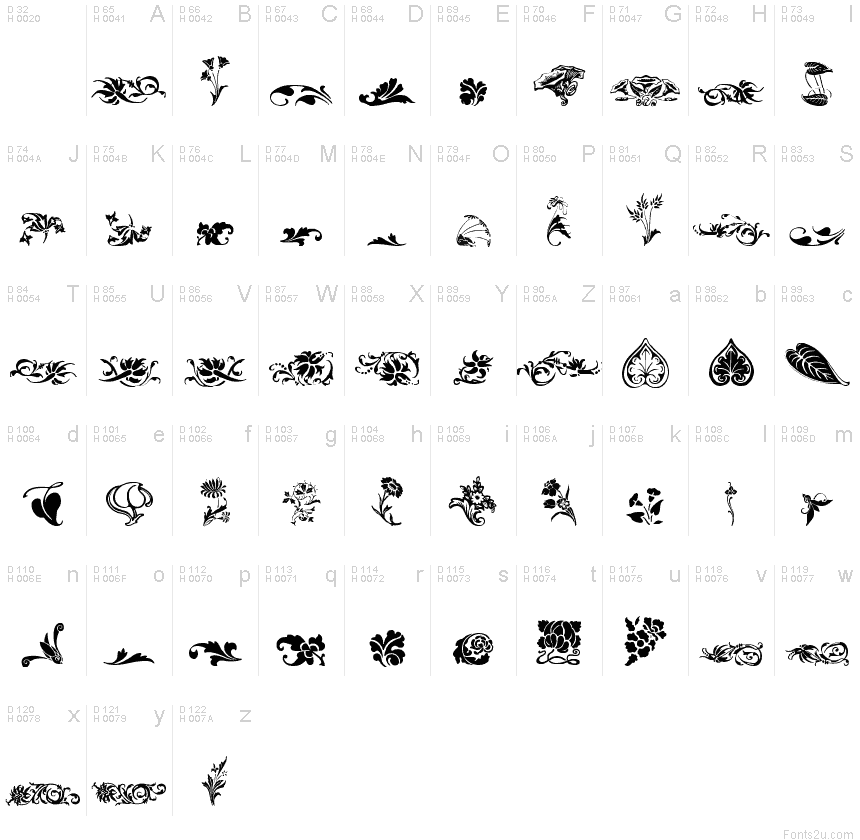
WWFloralCorner by Angela Lane is a free floral dingbat font built from lush, curling botanical ornaments and framed decorative corner pieces. The designs mix broad leaves, clustered blossoms, fine tendrils, and tiny insect-like details in dense silhouettes that recall engraved decorations from old books and stationery.
It can turn invitations, packaging, and editorial pages into illustrated borders. Beauty branding and wedding stationery also suit the collection because its vines and flowers echo familiar printed ornament, allowing each symbol to function as an emblem, divider, or corner flourish instead of ordinary lettering.